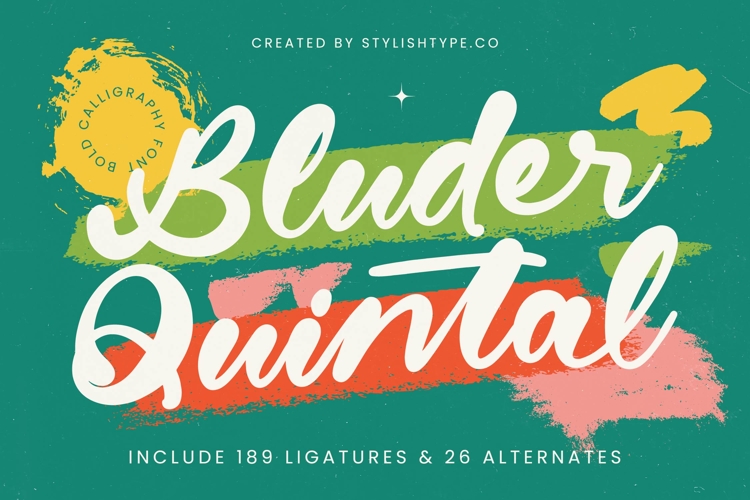
Bluder Quintal - Bold Calligraphy Font
Elevate your designs with the distinctive charm of Font Bluder Quintal - Bold Calligraphy Font Script. This exquisite typeface masterfully blends the organic fluidity of calligraphy with a confident, bold presence, creating an aesthetic that is both expressive and refined. Its handcrafted appeal immediately imbues projects with a sense of authenticity and bespoke artistry, making it an undeniable choice for designers seeking impact and a unique visual signature.
Discover the captivating allure of its dynamic letterforms and seamless connections. Font Bluder Quintal - Bold Calligraphy Font Script features a generous weight that ensures readability and prominence, while its elegant script styling conveys warmth and personality. With an impressive inclusion of 189 ligatures and 26 alternates, this font offers unparalleled creative freedom, allowing for truly customized and unique typographic expressions that stand out.